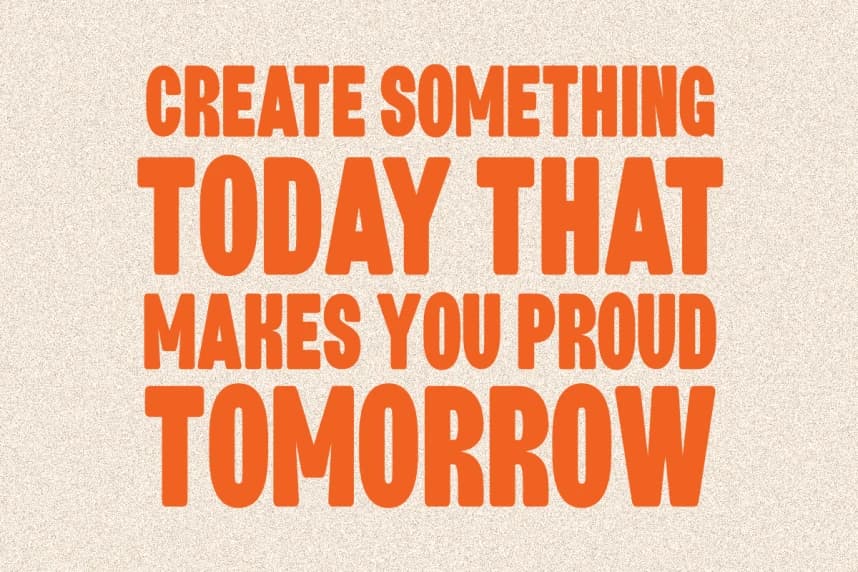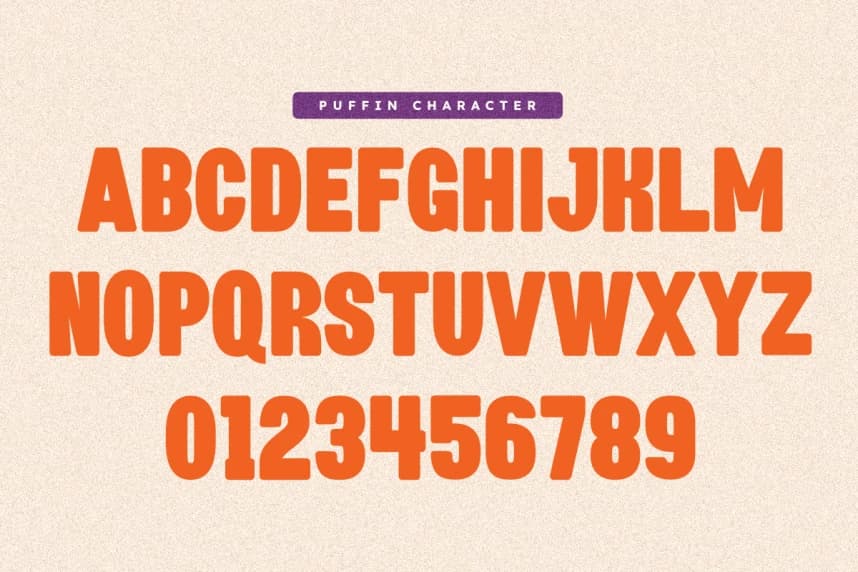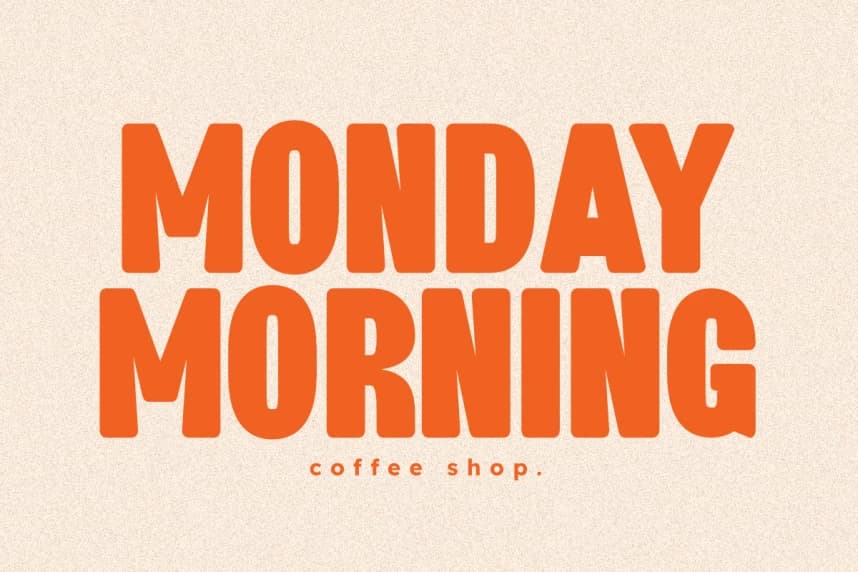
Puffin Font
Puffin Font is a bold retro condensed sans serif font uniquely designed to deliver a high-impact vintage aesthetic to your modern creative projects. Featuring a robust, compressed structural alignment and friendly rounded geometric contours